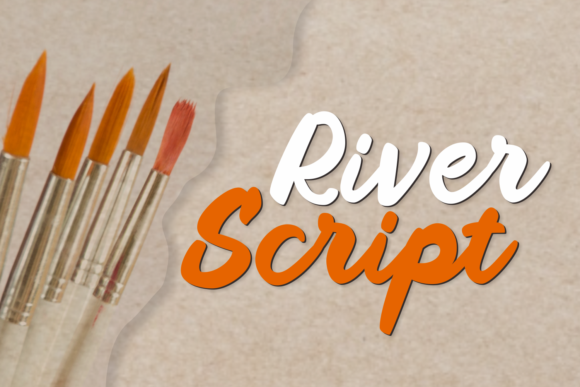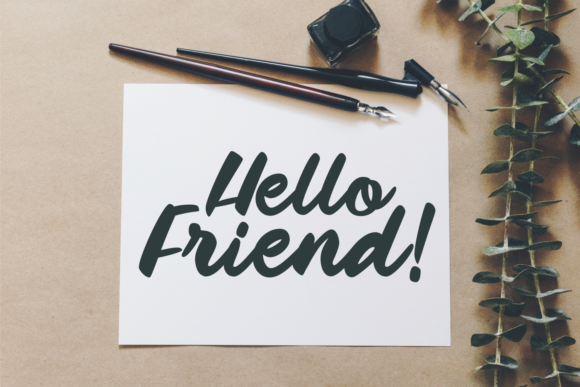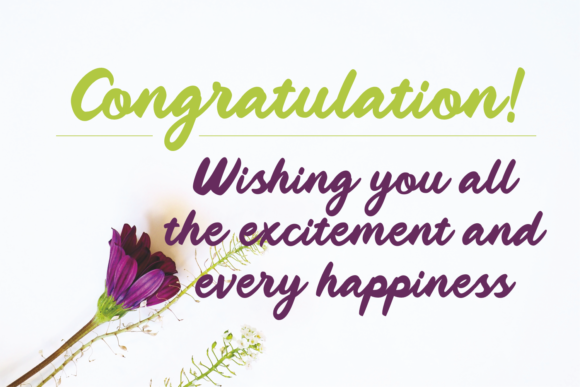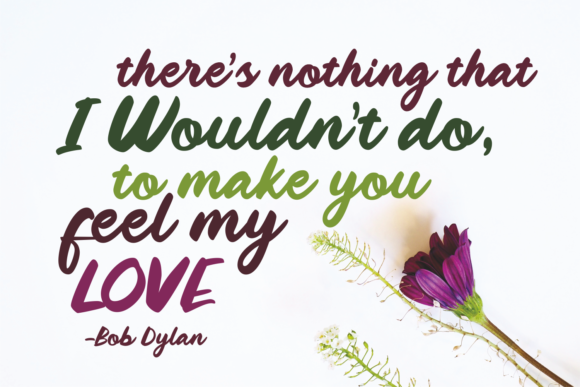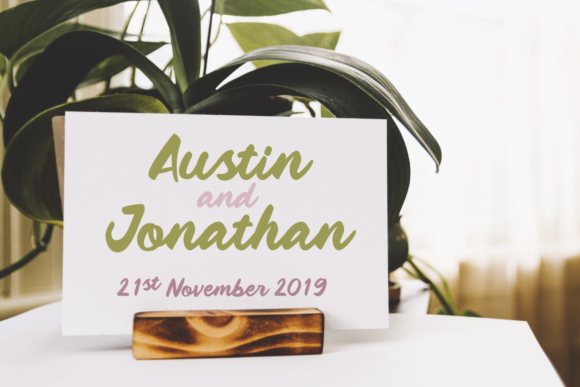
River Script Font
About River Script Font
River Script is an incredibly organic script with an authentic feel. Use it to add a personal touch to any design project!